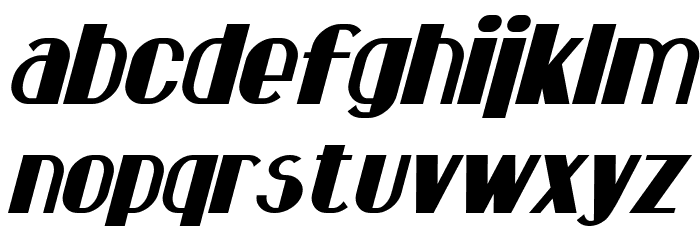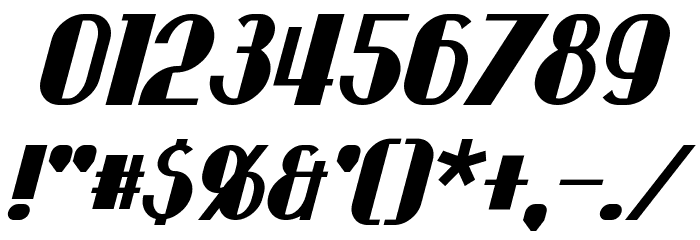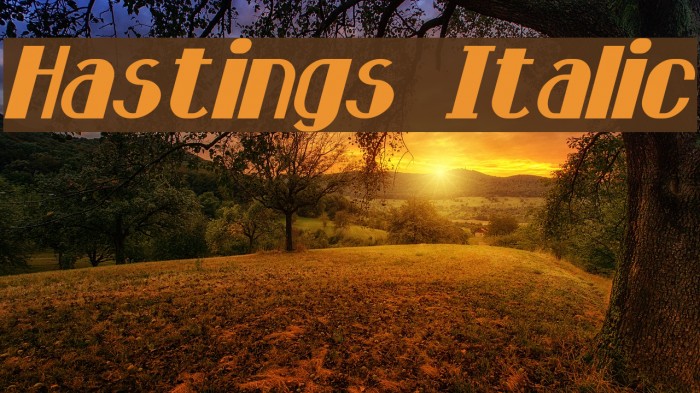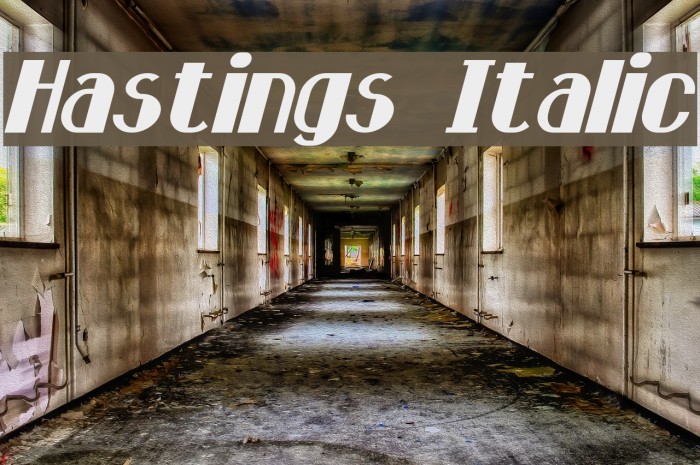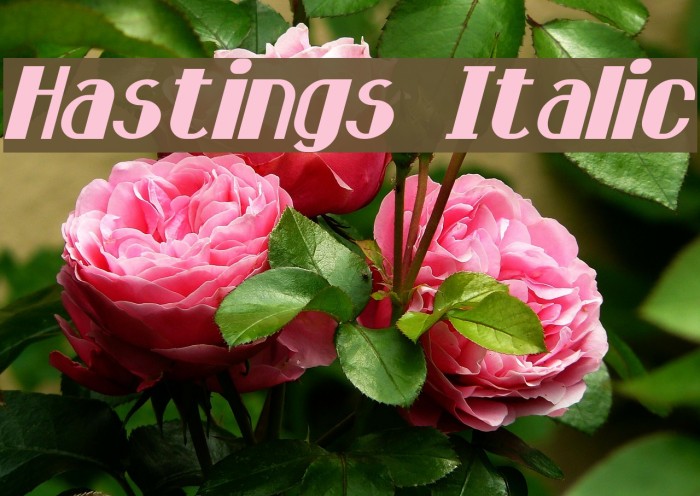
Hastings Italic Font
This font features a bold and dynamic italic style, characterized by its strong diagonal emphasis and sharp, angular lines. The uppercase letters are tall and commanding, while the lowercase letters maintain a consistent slant that enhances readability. The numerals are distinct and bold, matching the overall aesthetic of the alphabet. Special characters are designed with the same attention to detail, ensuring a cohesive look across all glyphs. The font's unique style makes it suitable for projects that require a modern and energetic feel.
A bold, italic font with sharp angles and a dynamic slant.
- Proposed Projects: Ideal for branding, advertising, headlines, and poster design where a modern and bold statement is needed.
- Use Case: Headlines, Logos, Advertising